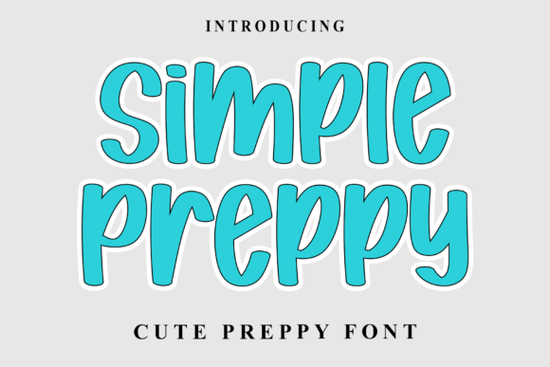
If you're looking for a script font that blends elegance with everyday usability, the Simple Preppy Font is worth a closer look. Designed with tall ascenders, fluid connections, and a thoughtful balance between bold downstrokes and delicate upstrokes, it captures the warmth of handwritten lettering while remaining highly legible even at smaller sizes. Whether you’re creating wedding invitations, branding materials, or printable quotes, this modern script brings a refined yet approachable feel to your projects.
What makes Simple Preppy work so well for real-world designs?
Unlike overly ornate scripts that can become hard to read, Simple Preppy maintains clarity without sacrificing style. Its generous loops and expressive letterforms give it personality, but the consistent rhythm and spacing keep it practical for both digital and print use. This balance is especially helpful if you’re designing for:
- Custom greeting cards or stationery
- Small business logos or packaging
- Print-on-demand mugs, T-shirts, or tote bags
- Social media graphics that need a personal touch
The font’s contrast thick vertical strokes paired with thin connecting lines adds visual interest without overwhelming your layout. It’s decorative enough to stand out, but not so fussy that it distracts from your message.
How does it compare to other popular script fonts?
On the other hand, Lockride delivers a smoother, more minimalist script ideal for clean branding while BohoBaby brings a relaxed, hand-lettered vibe perfect for organic or wellness-themed designs. Simple Preppy sits comfortably between these styles: polished but not stiff, stylish but not trendy.
Tips for pairing Simple Preppy with other typefaces
Because Simple Preppy has strong personality, pair it with clean, neutral sans-serif fonts to avoid visual clutter. Think of fonts like Montserrat, Lato, or even basic system fonts like Helvetica or Arial. Use the script for headlines, names, or short phrases, and let your supporting font handle body text or captions.
Also consider spacing and sizing. Give the letters room to breathe tight kerning can make those elegant loops collide. And while it works beautifully at large sizes (like on posters or banners), test readability at smaller scales before finalizing your design.
Who is this font best suited for?
Creative hobbyists who enjoy making personalized gifts will appreciate how effortlessly Simple Preppy adds charm to DIY projects. Print-on-demand sellers can use it to create standout listings for holidays, weddings, or seasonal decor. Small businesses especially in beauty, boutique retail, or event planning can leverage its sophistication to build a memorable brand identity without looking overly formal.
Even if you’re not a professional designer, the font’s intuitive flow makes it easy to achieve polished results with minimal effort. Just type, adjust spacing slightly, and you’re often good to go.